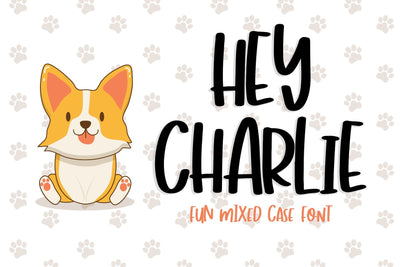
Hey Charlie - Fun Mixed Case Font
Hey Charlie, a fun mixed case font
Mixed up every letter between uppercase and lowercase to get the charming combination!